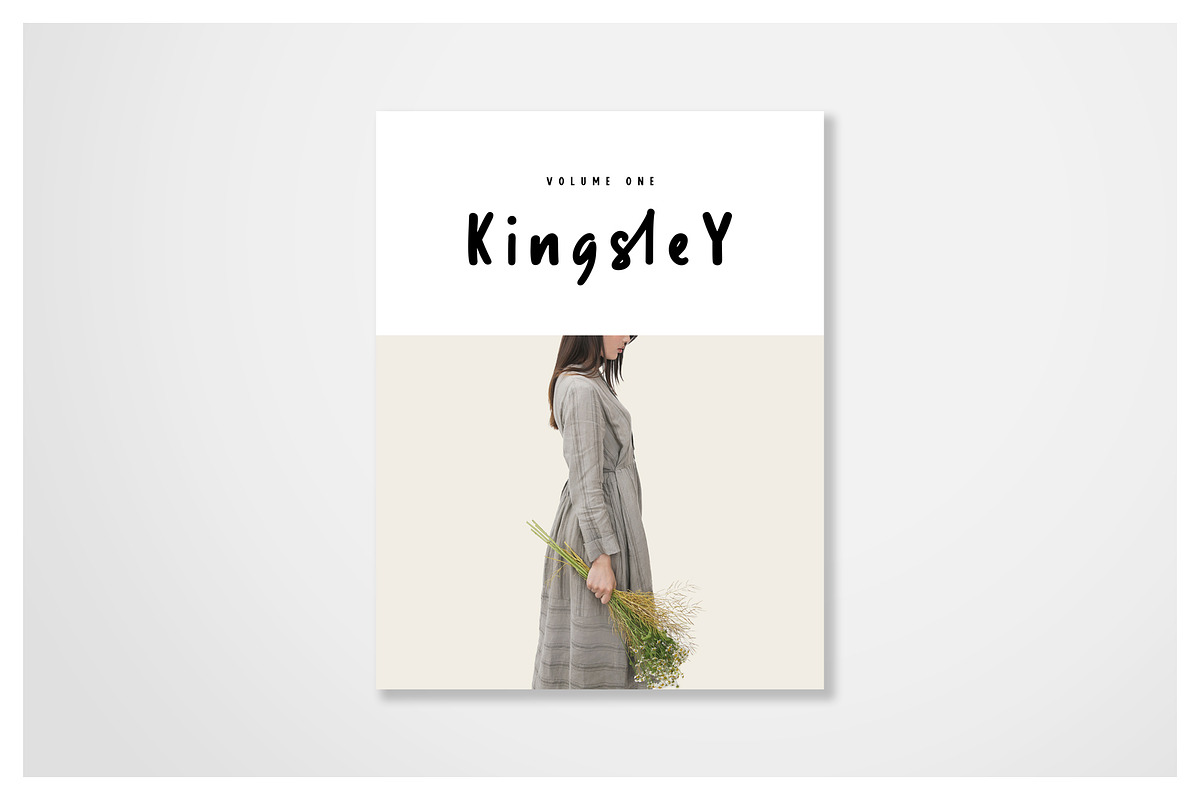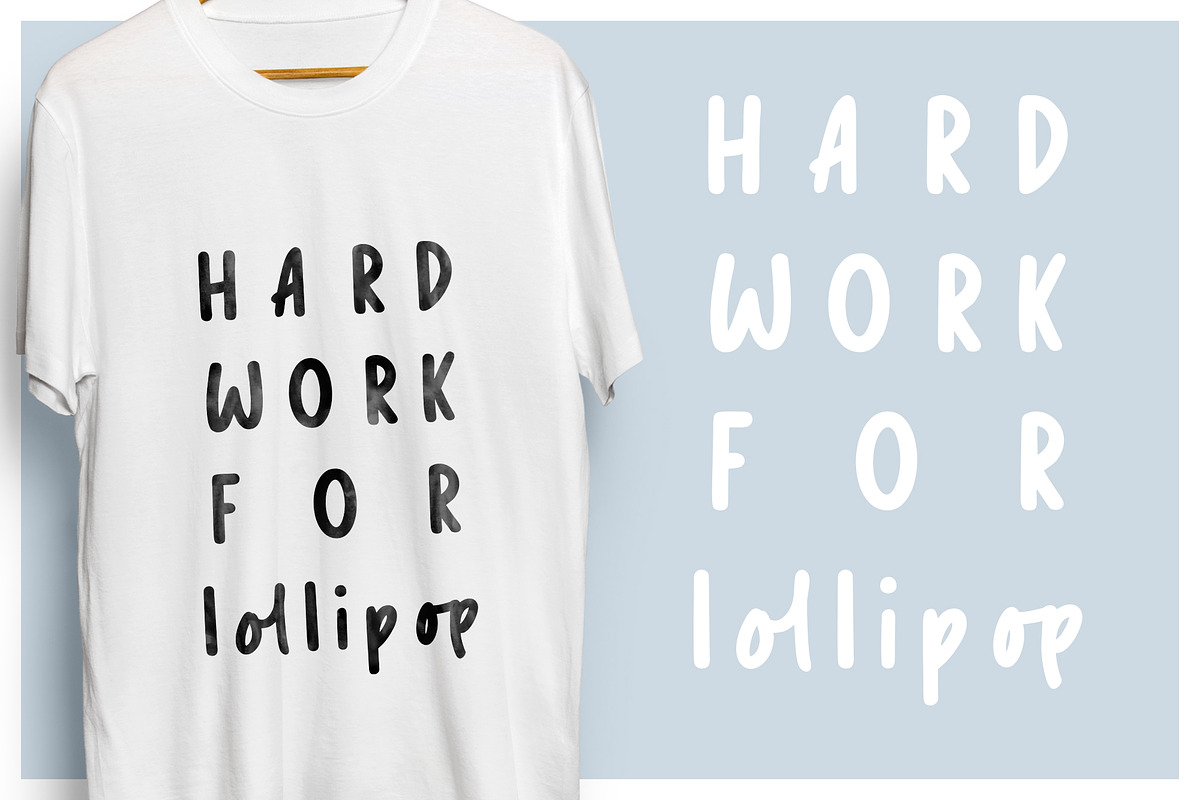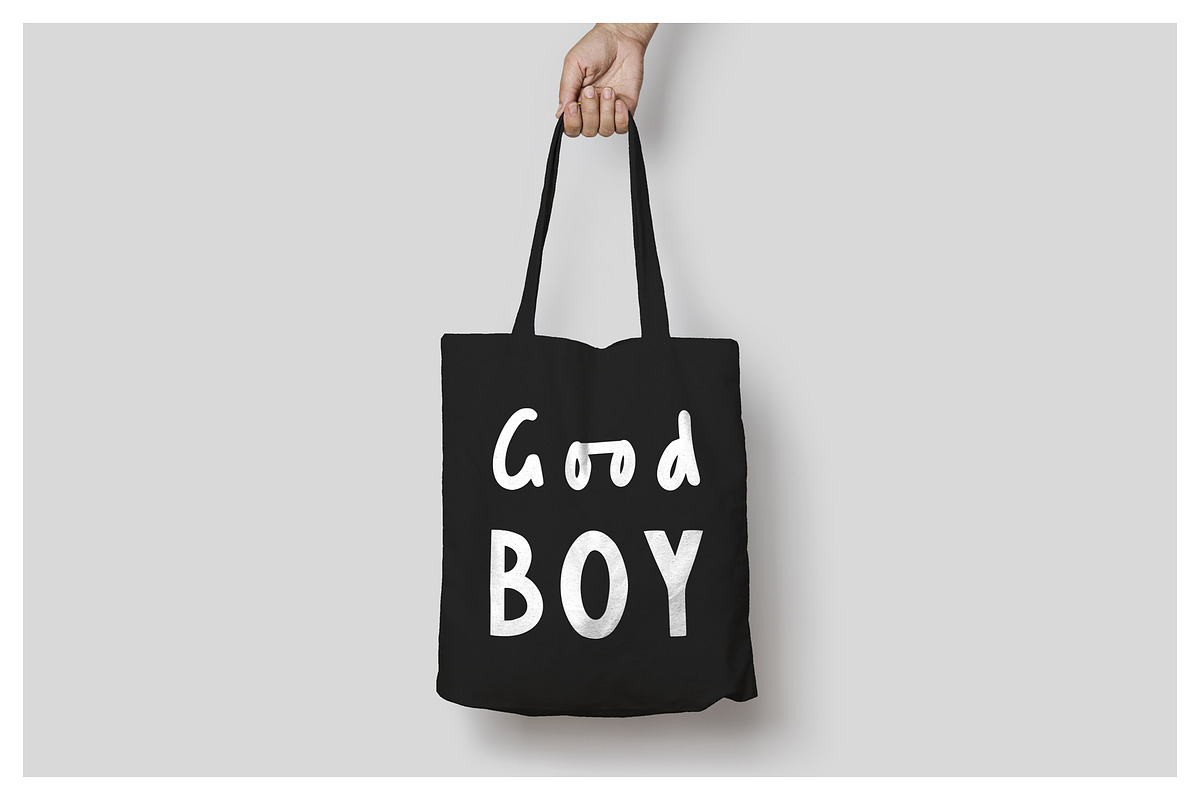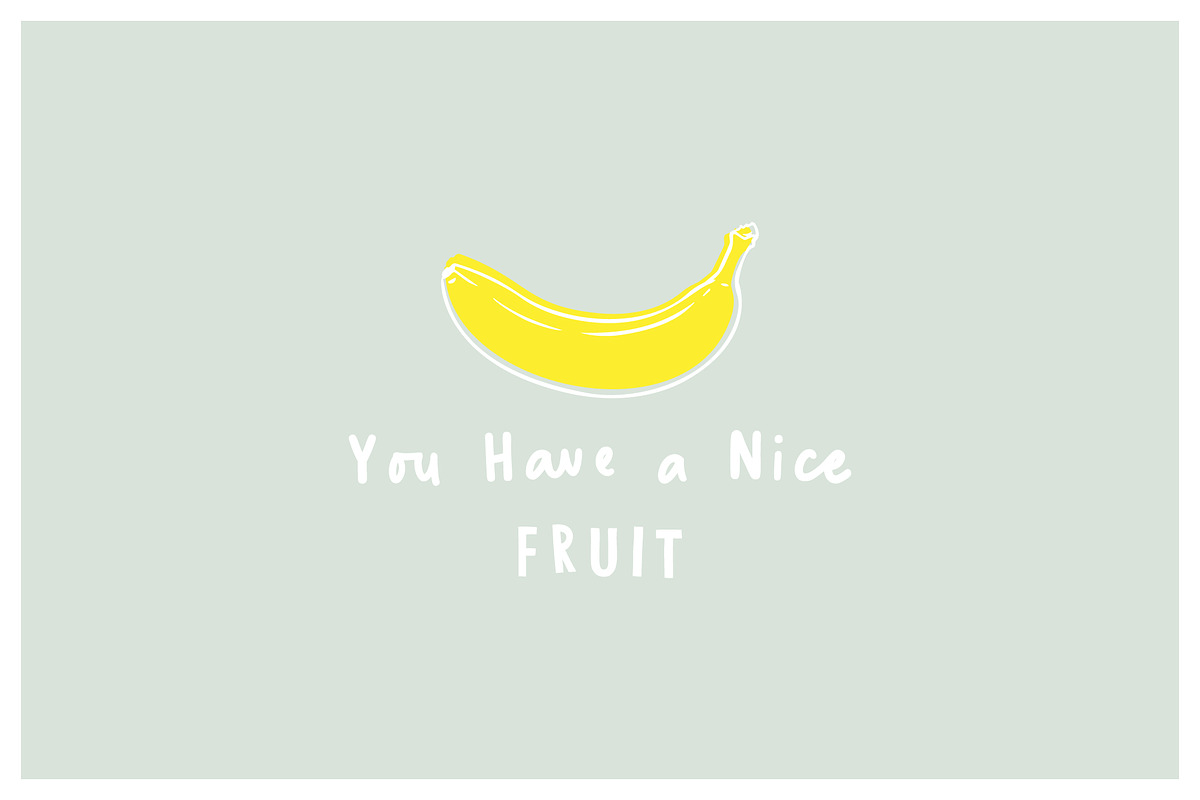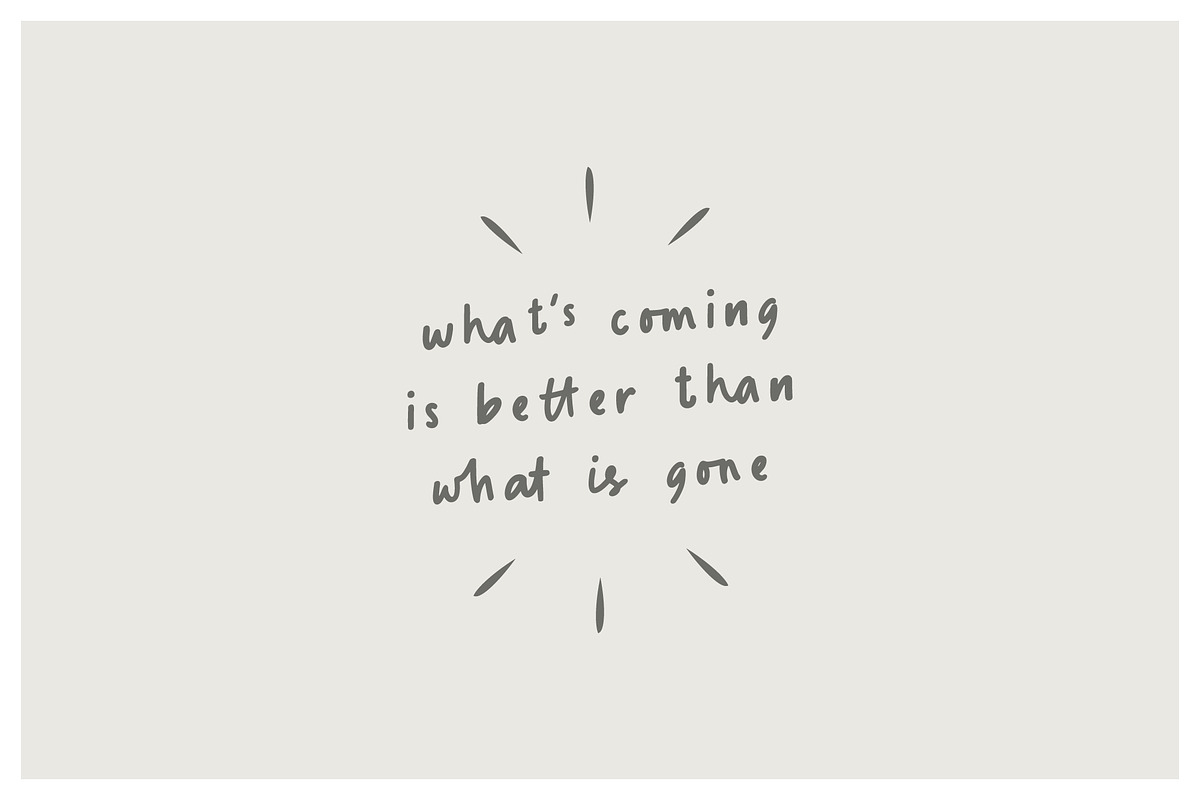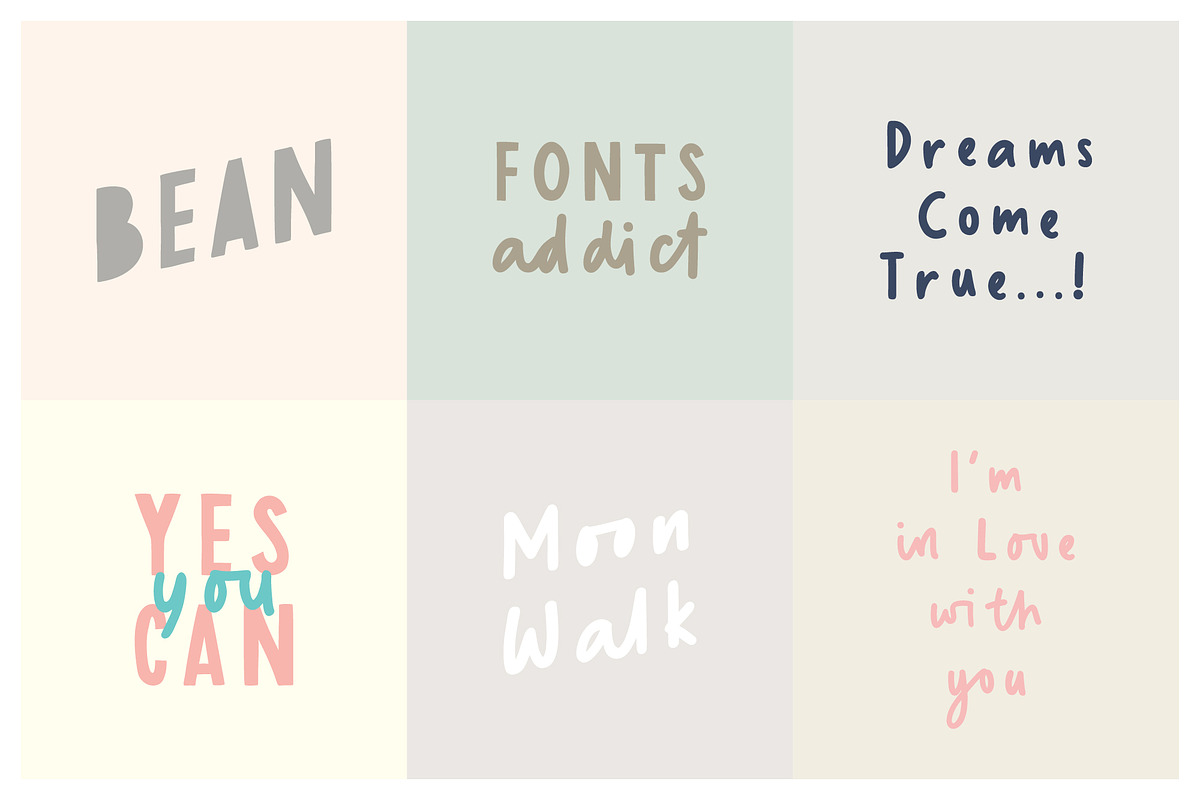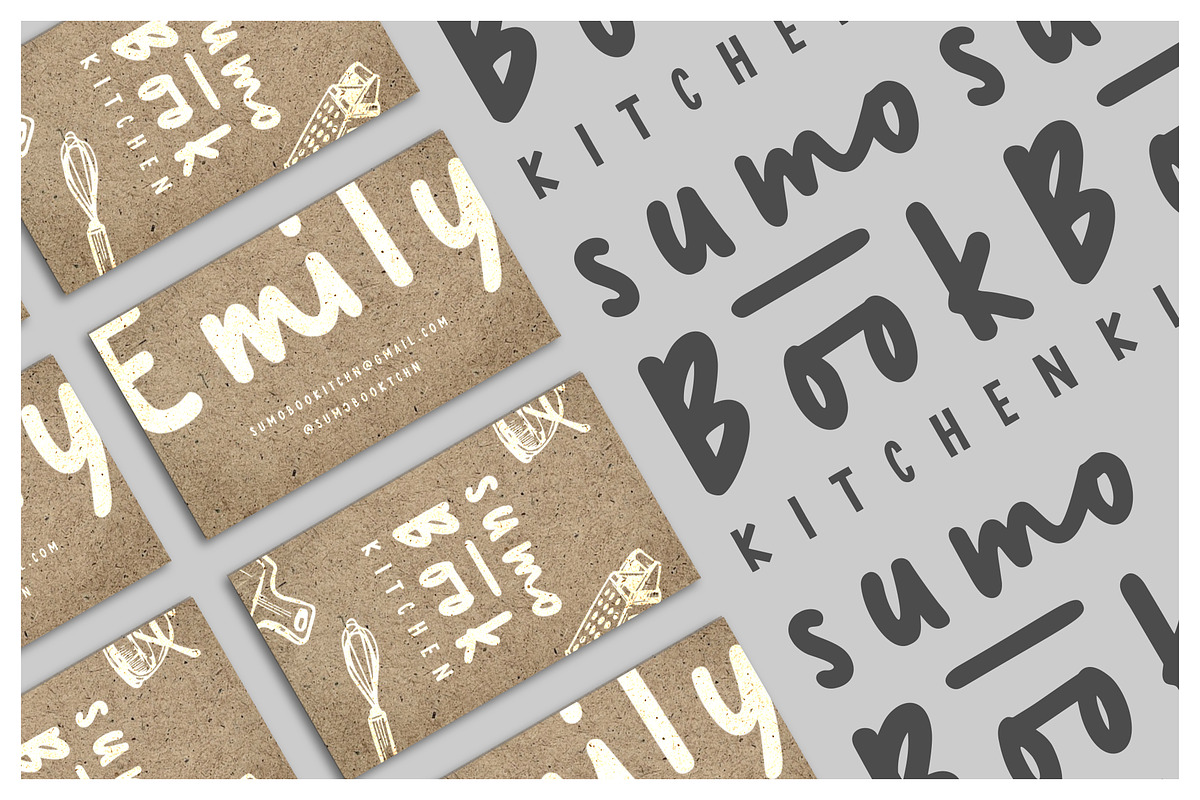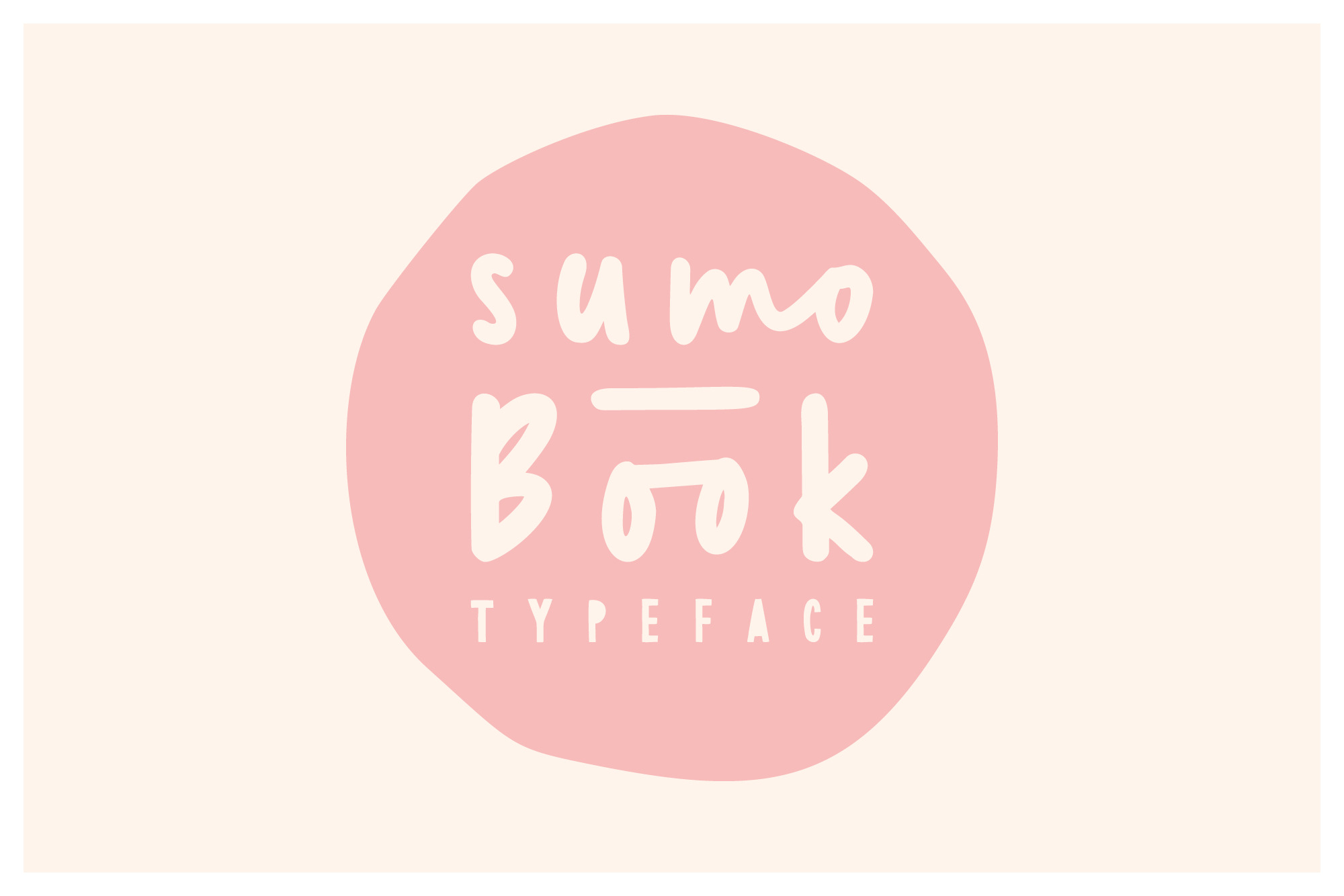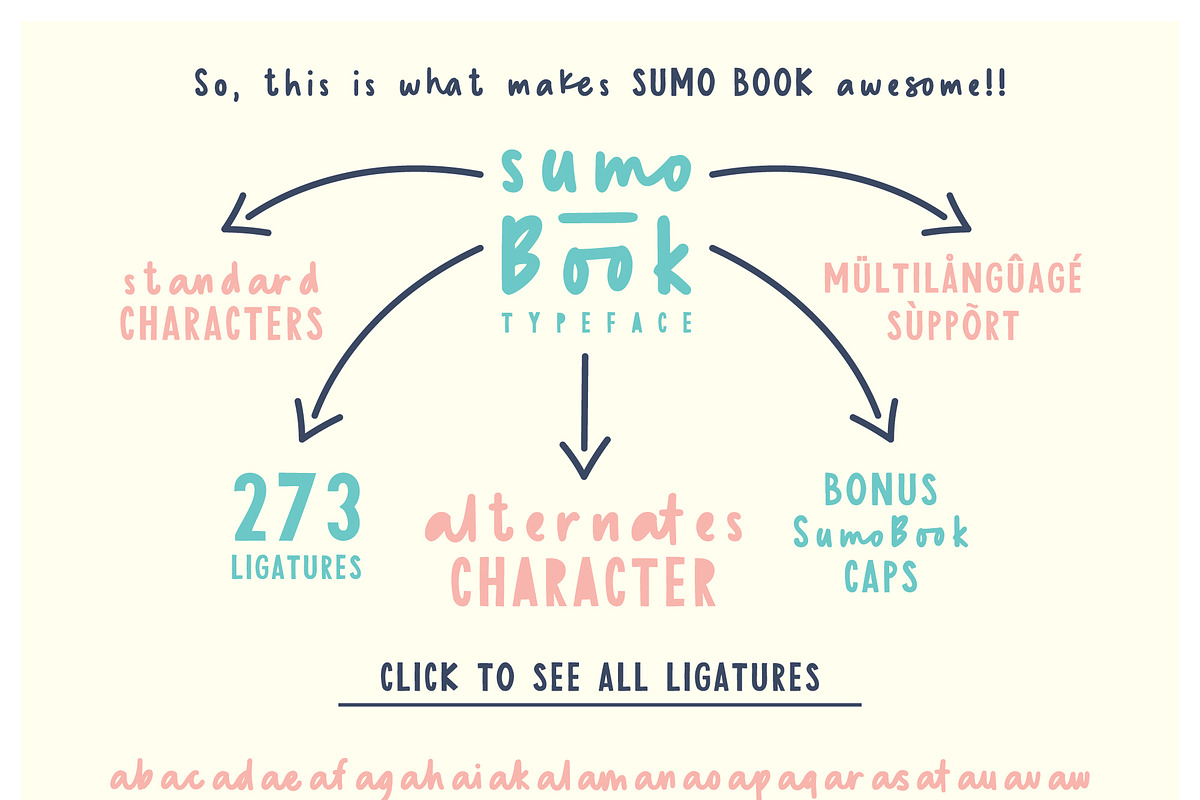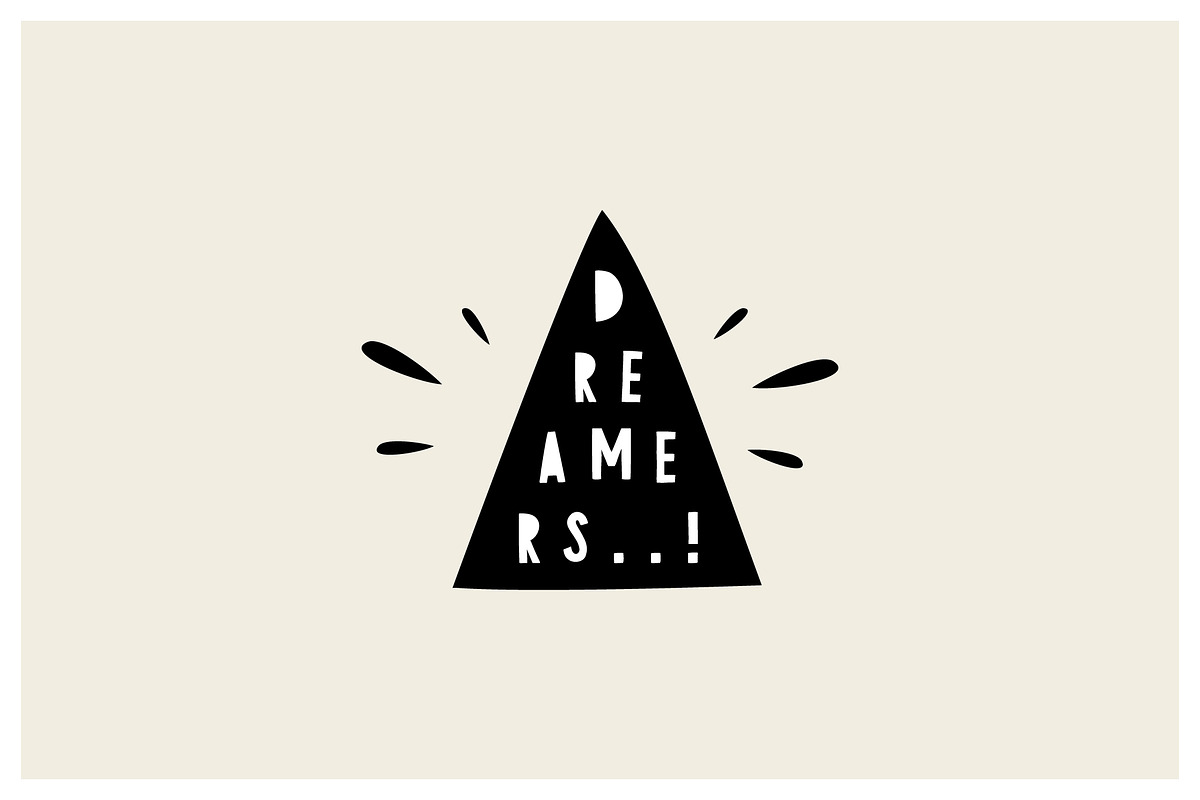
Sumo Book Font
Introducing Sumo Book Typeface, a clean and fun handwritten typeface with 273 ligatures.
This font very simple and fun to use! It includes standard characters and multilanguage support. Sumo Book typeface perfect for create a quotes, logo, badge, insignia, packaging, headline, poster, t-shirt/apparel, greeting card, wedding invitation and more.